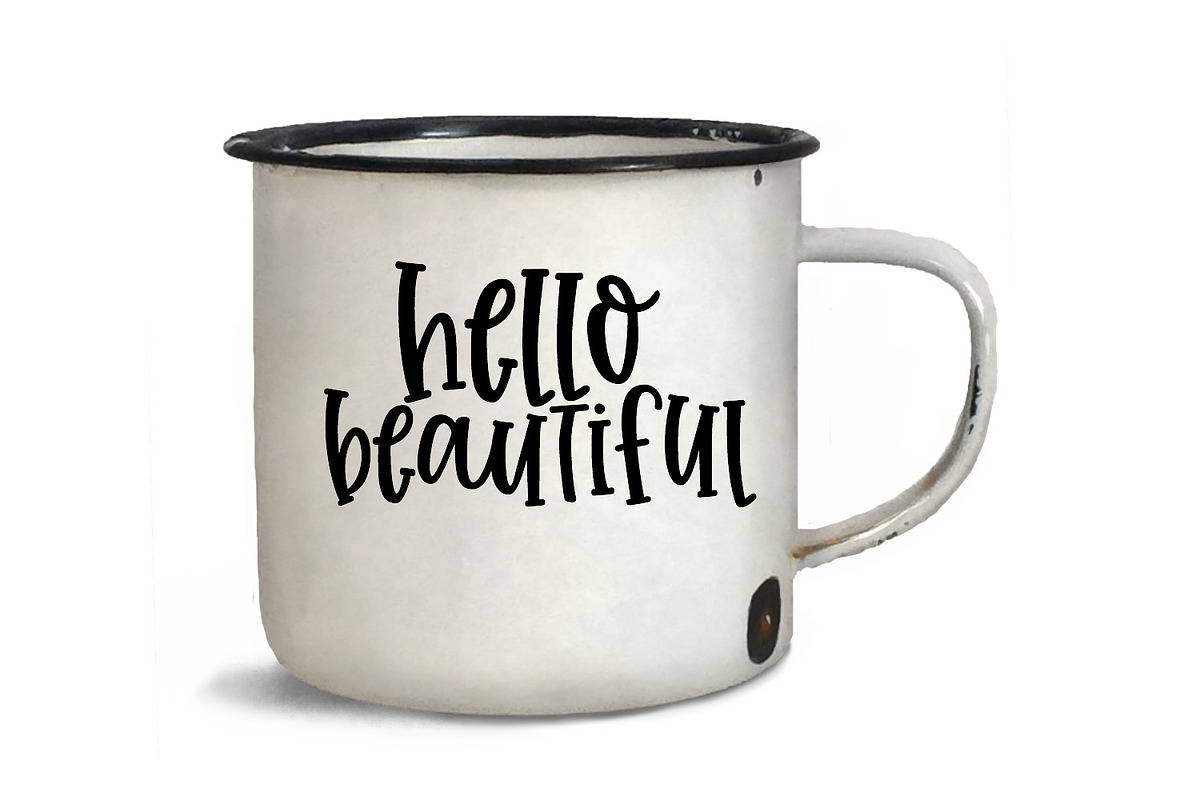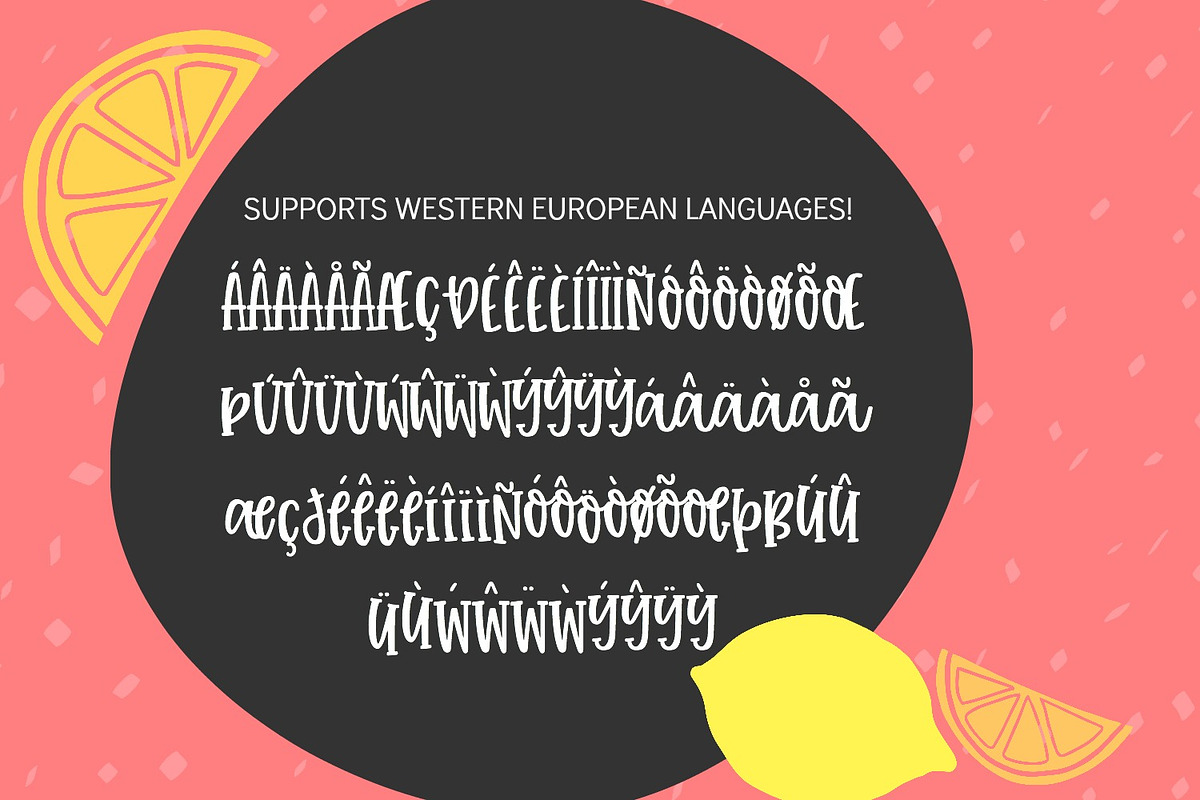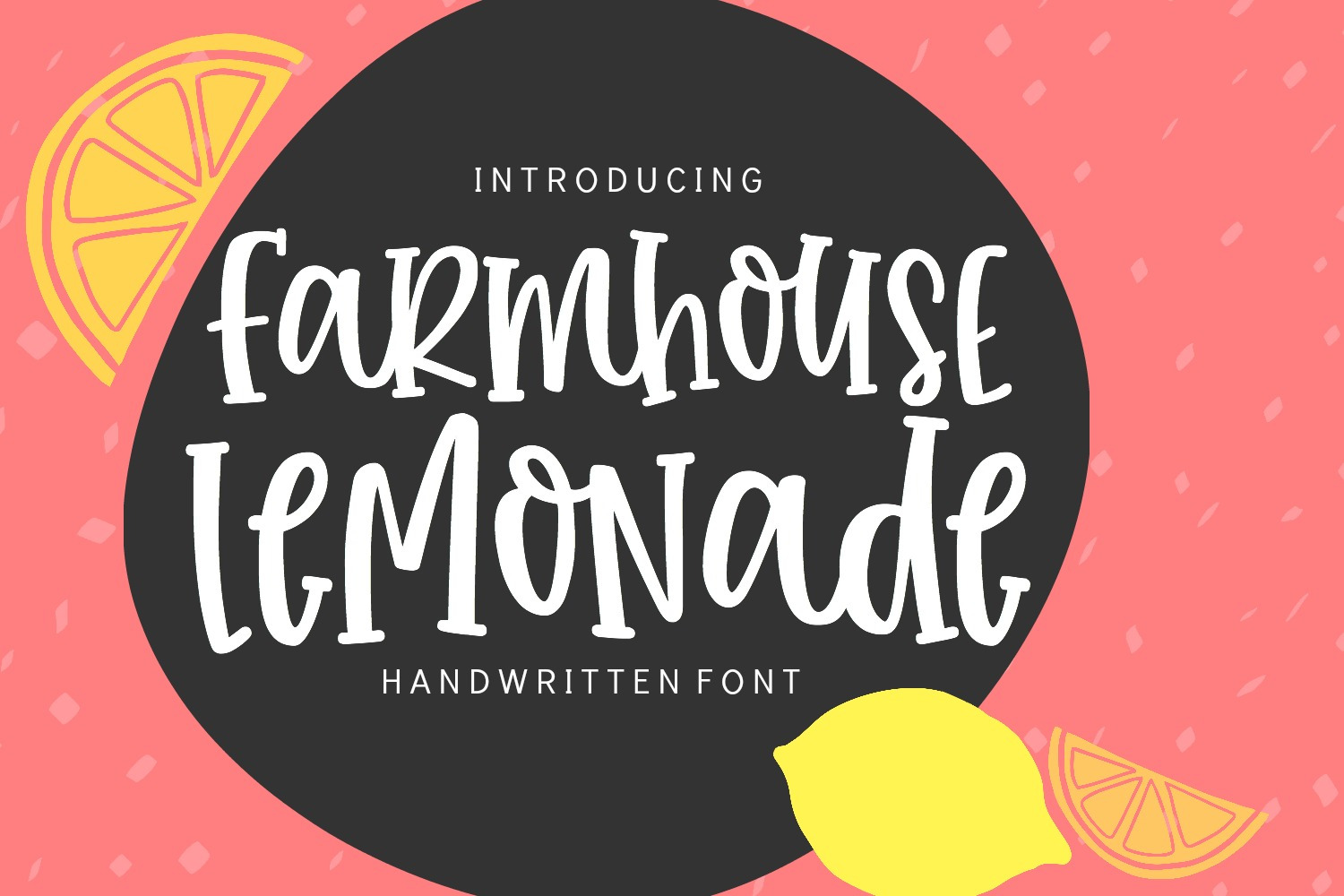
Farmhouse Lemonade Handwritten Font
Farmhouse Lemonade Handwritten Font is a fun, bouncy handwritten font bursting with handwritten charm and personality! It is a perfect choice for crafters with cutting machines, as it is ultra smooth for optimal cutting performance.
Language Support: Basic Latin and; most Western European languages